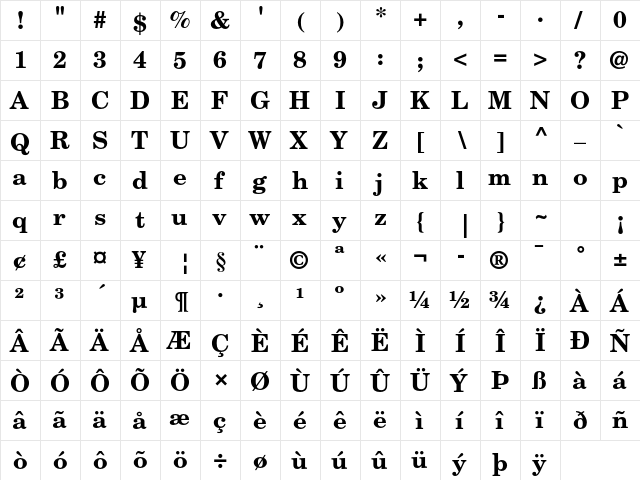
New Century Schoolbook LT Std Bold
| Designer | Morris Fuller Benton |
Design Context for New Century Schoolbook LT Std Typeface
New Century Schoolbook LT Std offers clean, dependable letterforms without strong stylistic allegiance, making it a practical choice for designers who need flexibility. Its bold stroke weight gives it real presence on the page.
Pro Tip: Pair New Century Schoolbook LT Std with a font of contrasting weight or personality to build a more expressive typographic hierarchy.